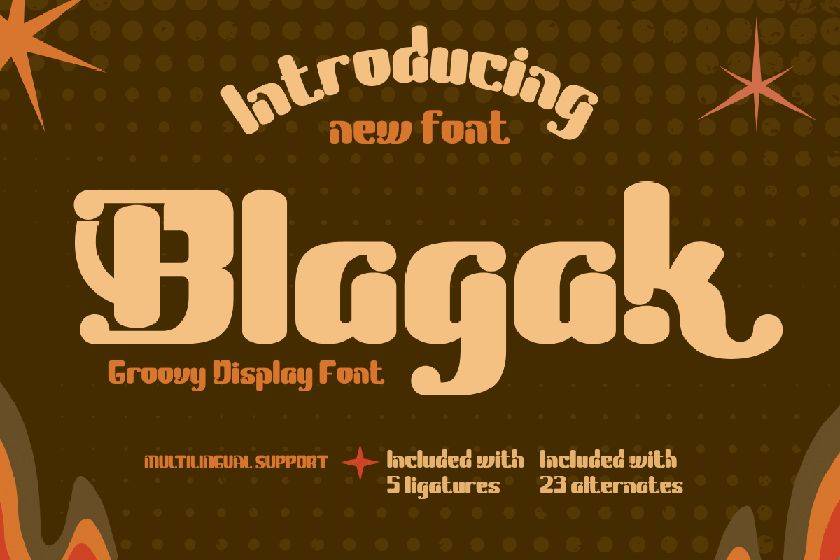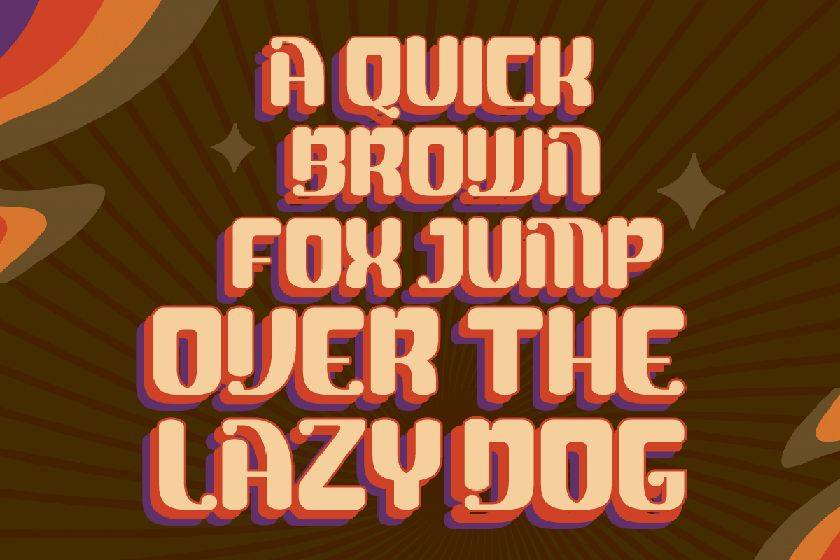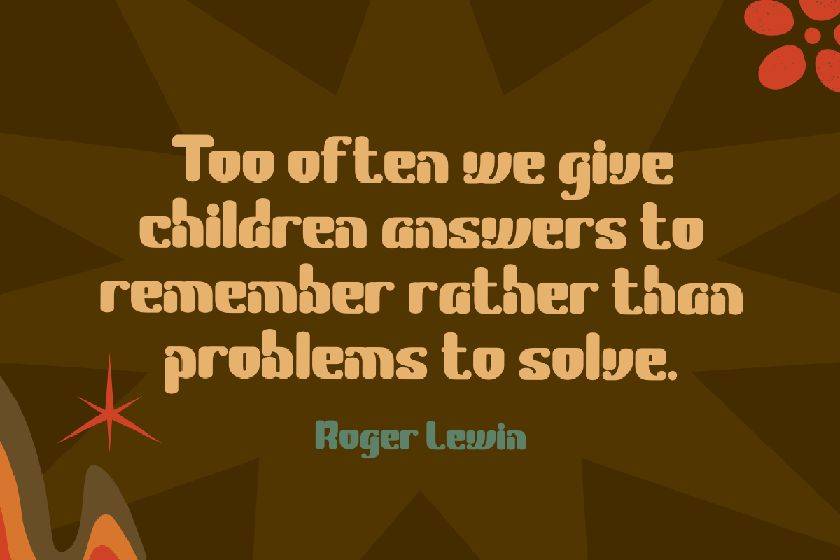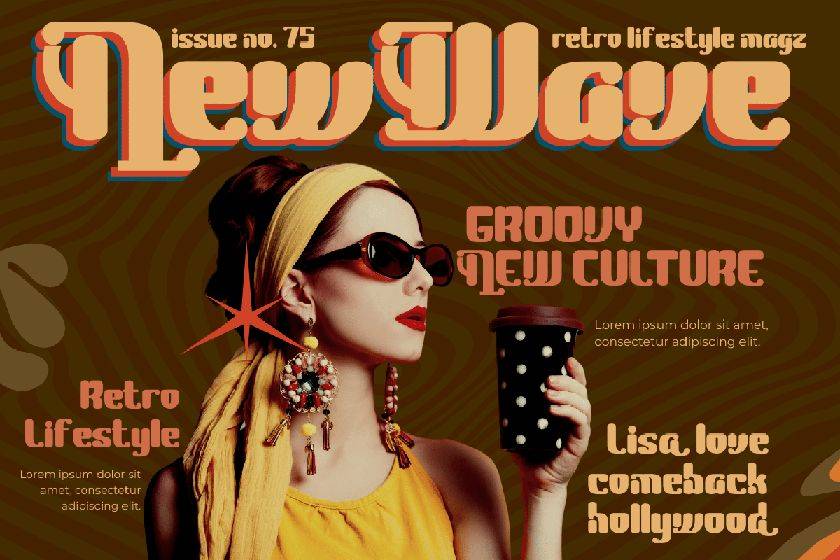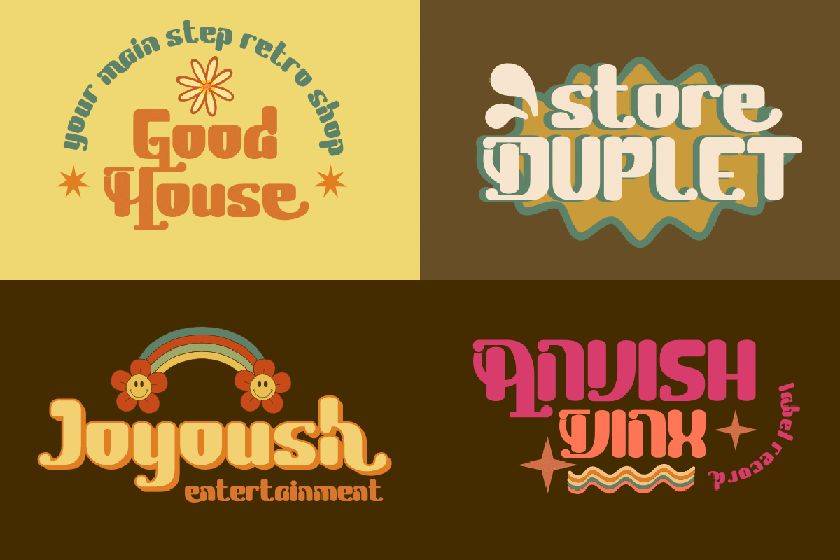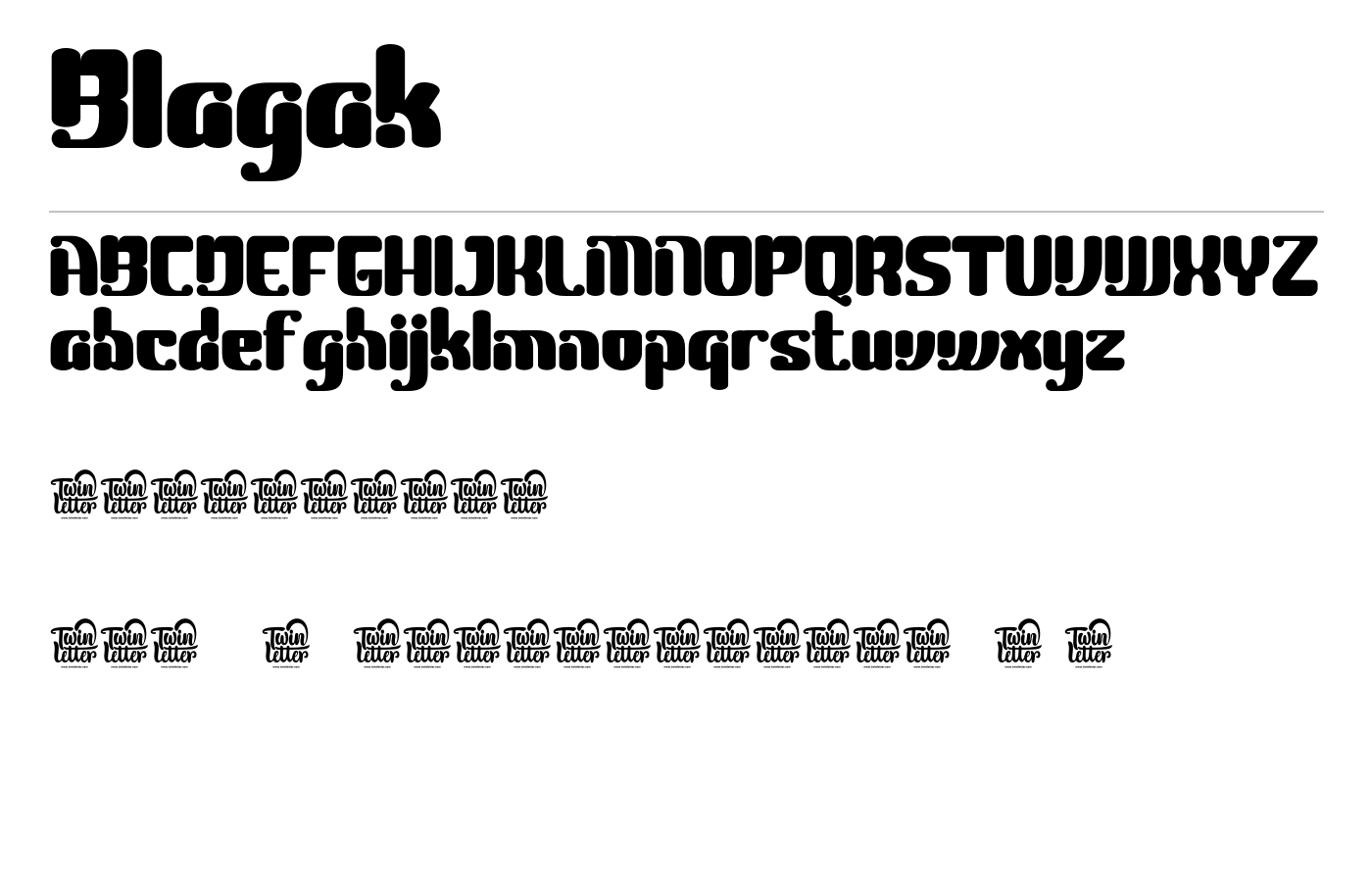
Blagak is a bold, geometric sans serif font with a playful and modern vibe, characterized by its rounded corners and thick, uniform strokes. Its unique letterforms with tightly spaced shapes and a slightly condensed width make it ideal for eye-catching headlines, logos, and branding that seek a friendly yet strong personality. This font works best in creative and contemporary design projects looking to convey approachability and confidence.
Blagak Font
About Blagak Font